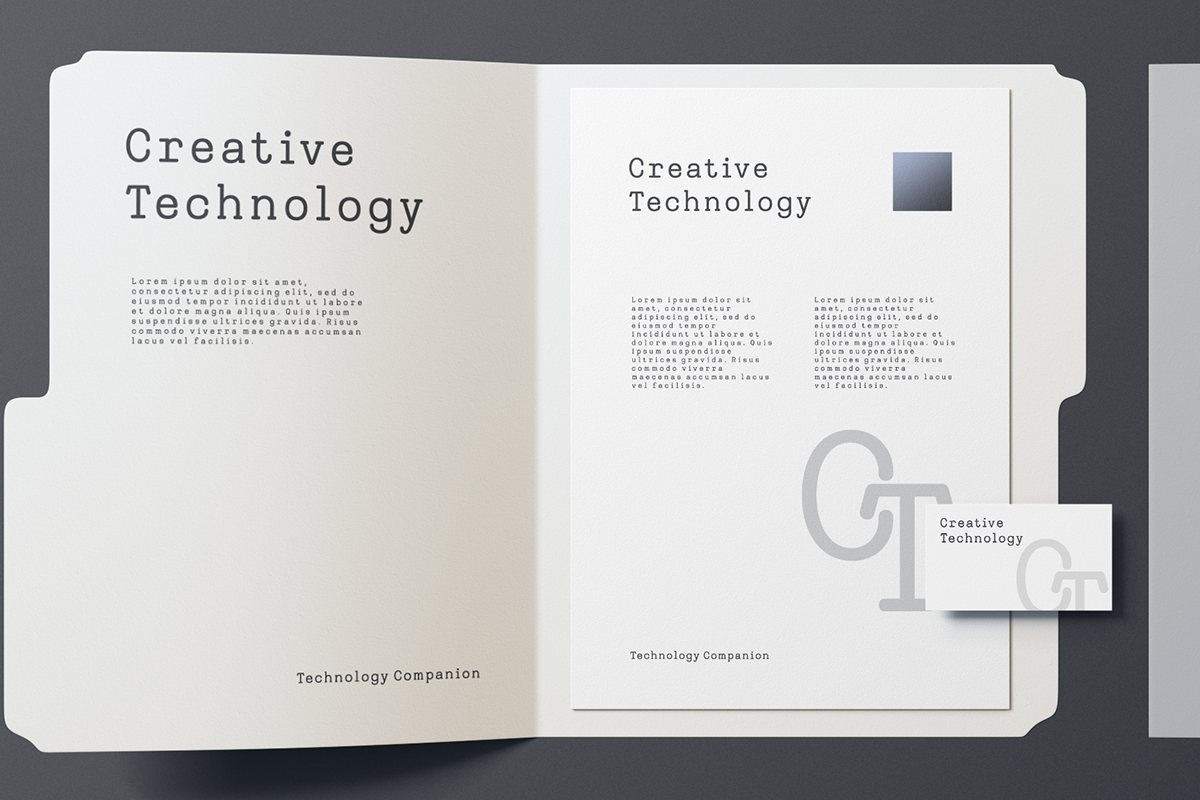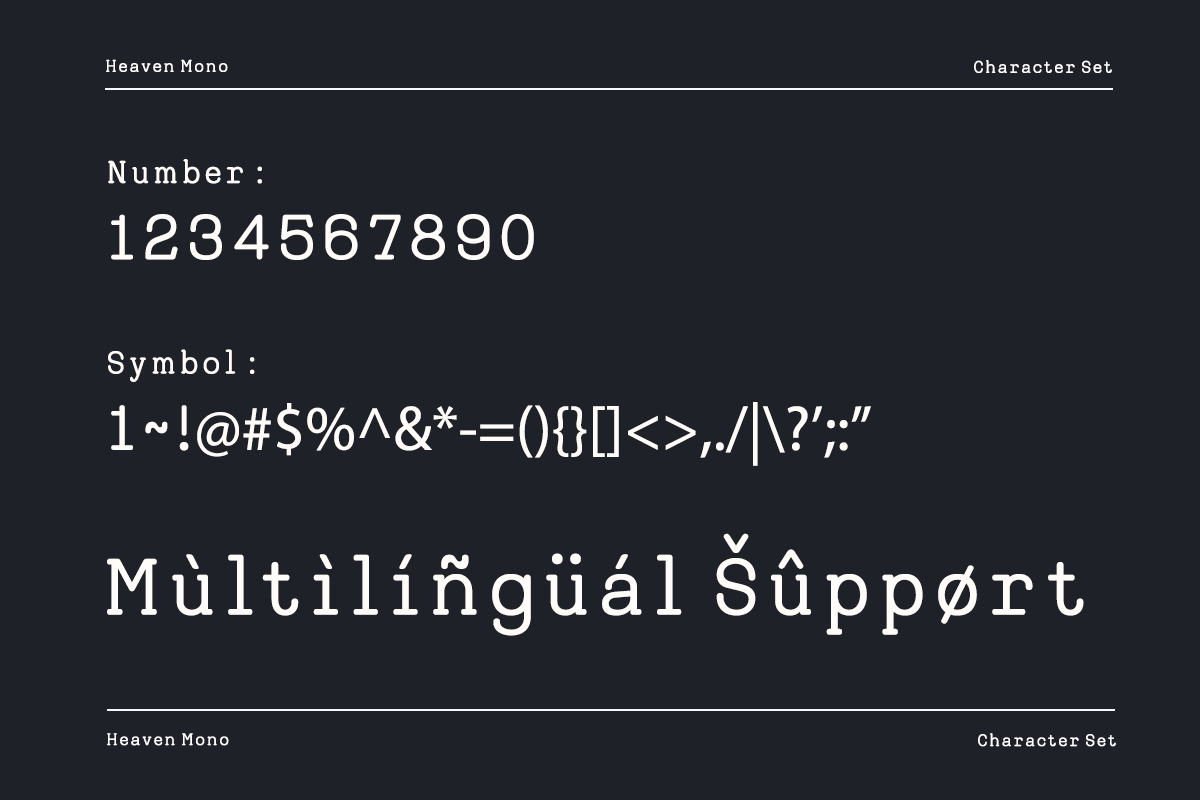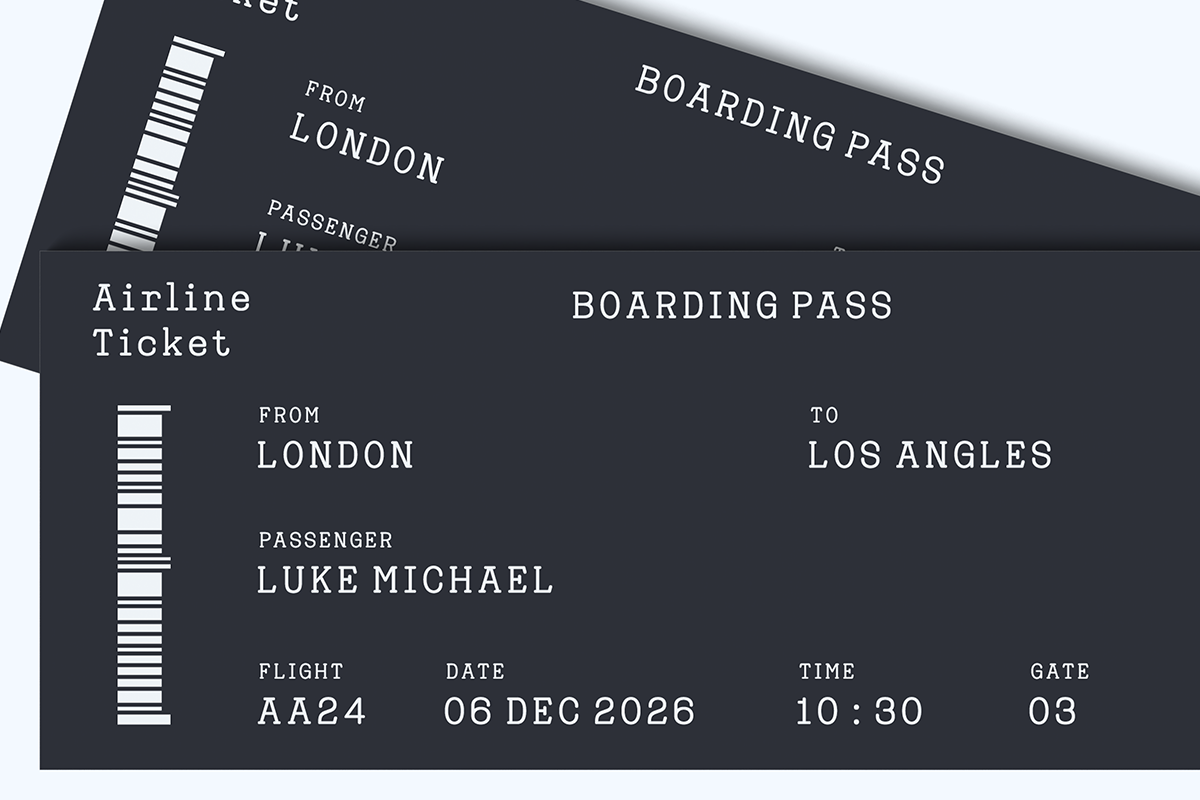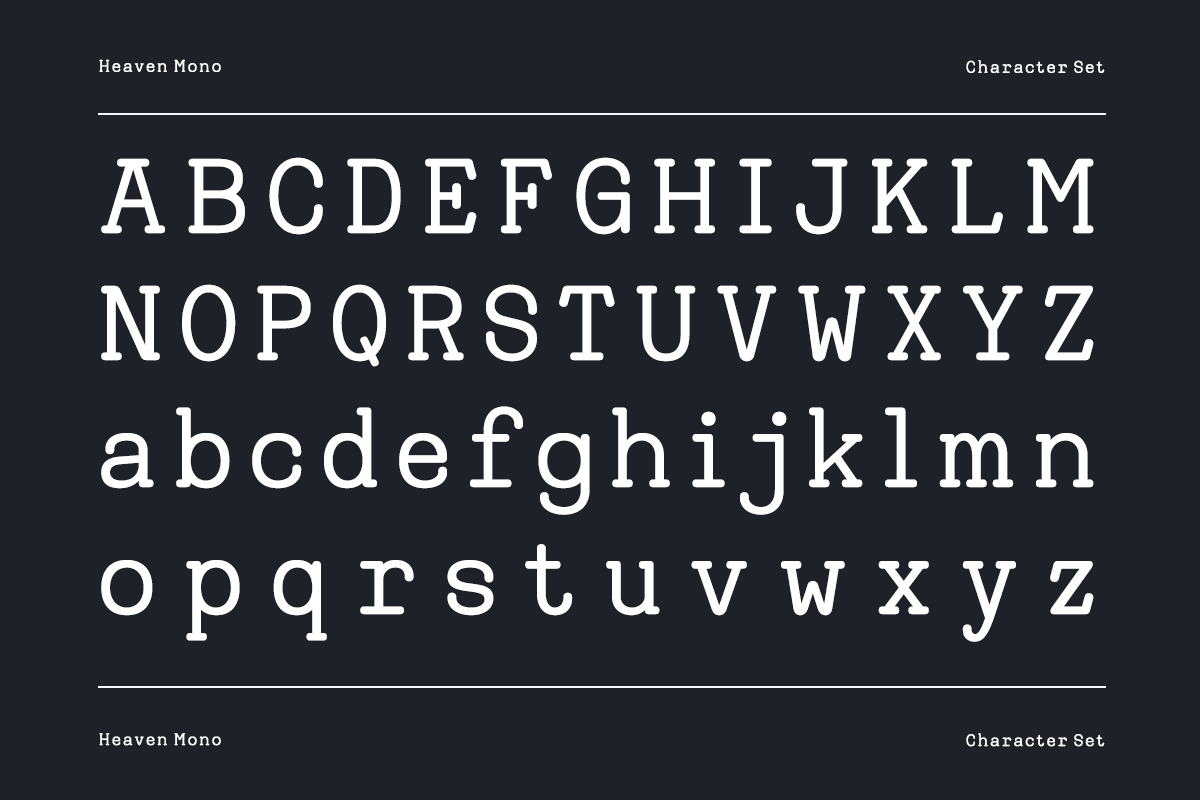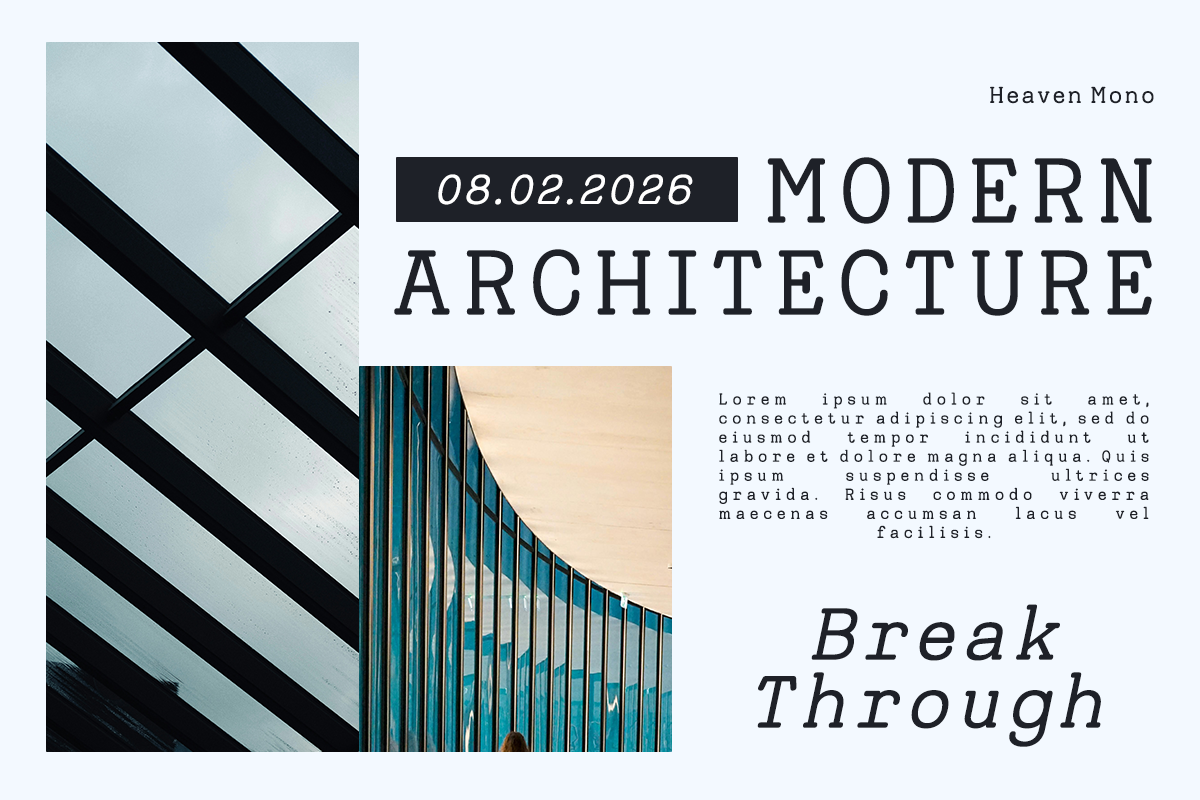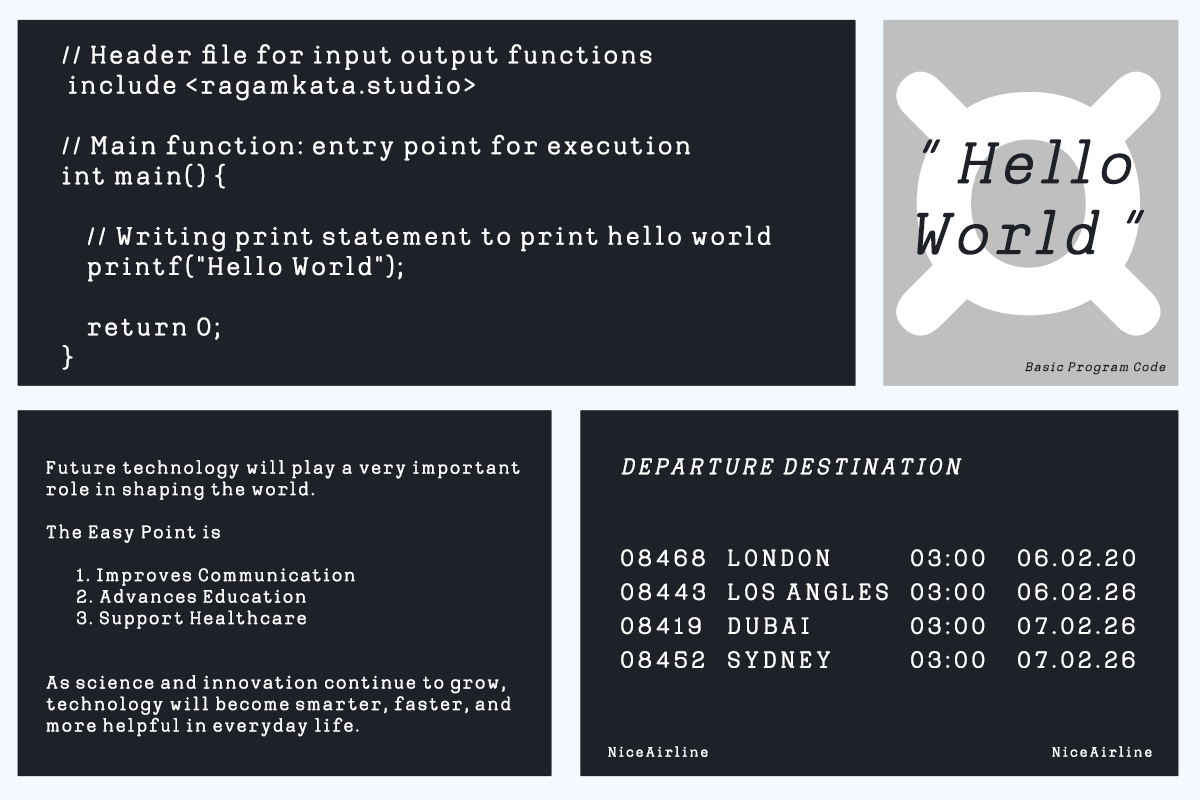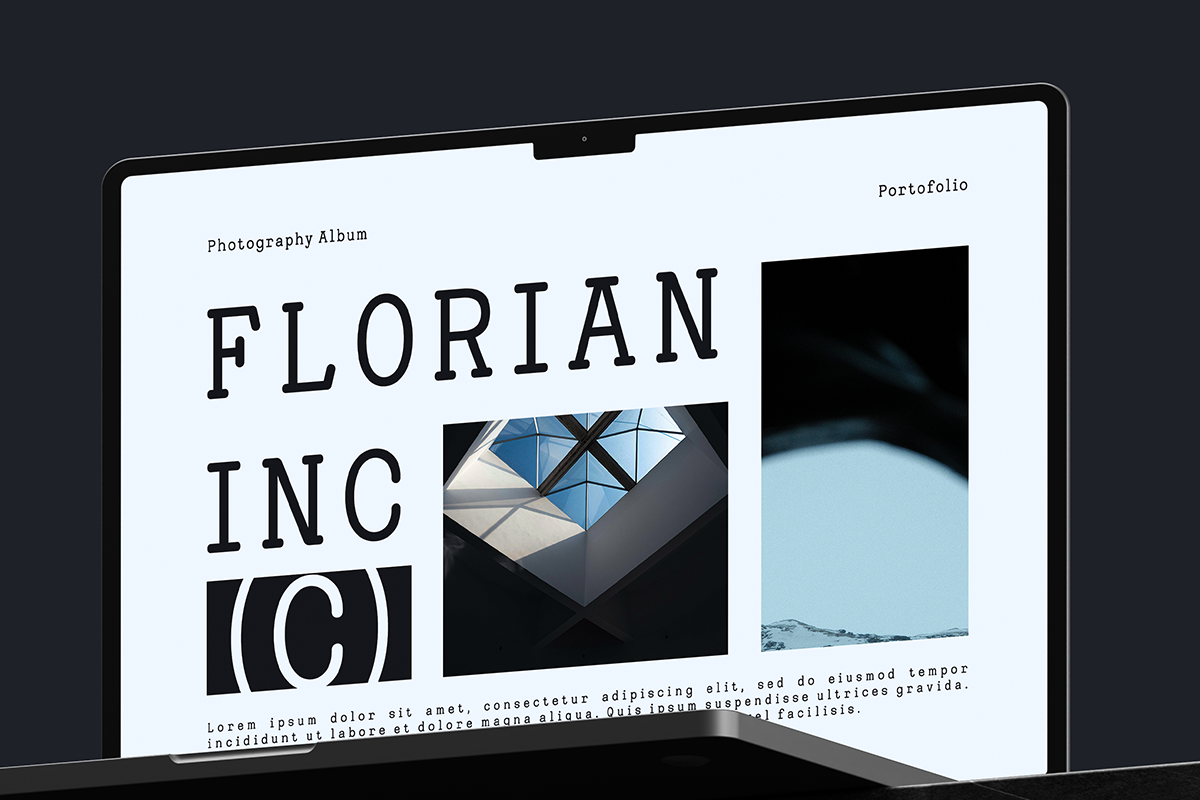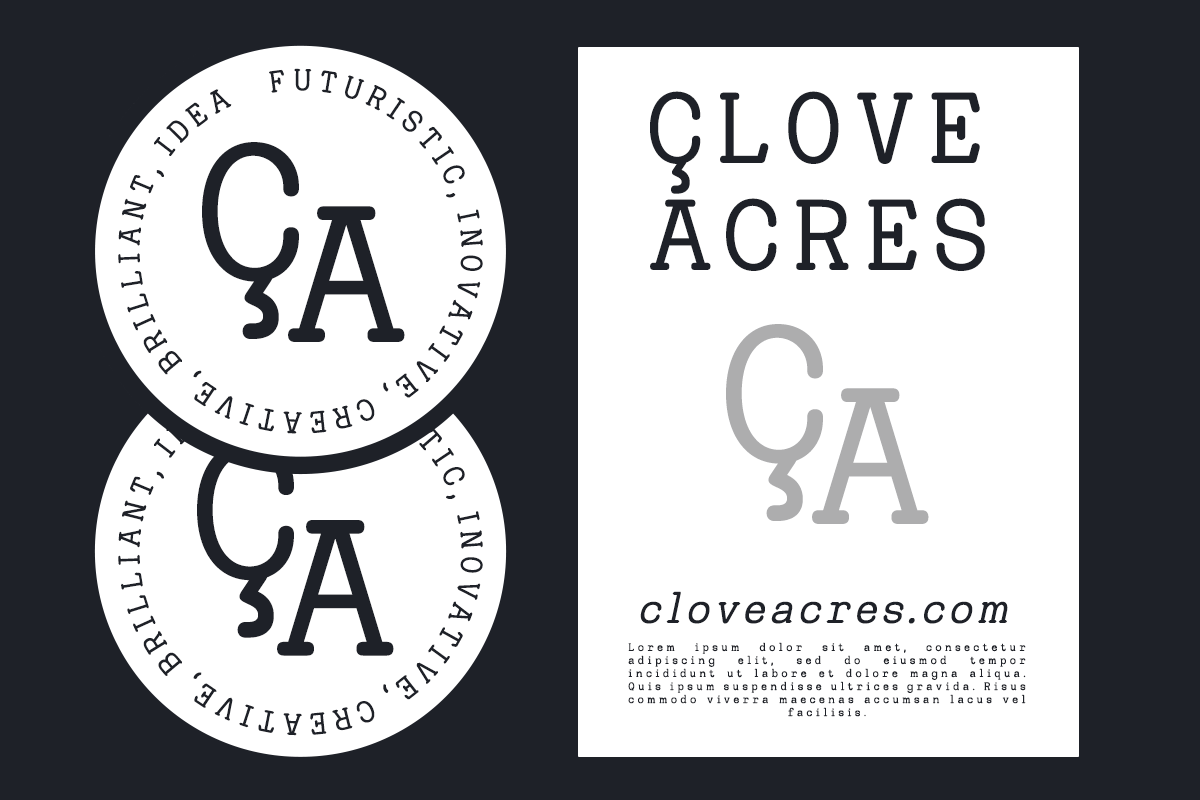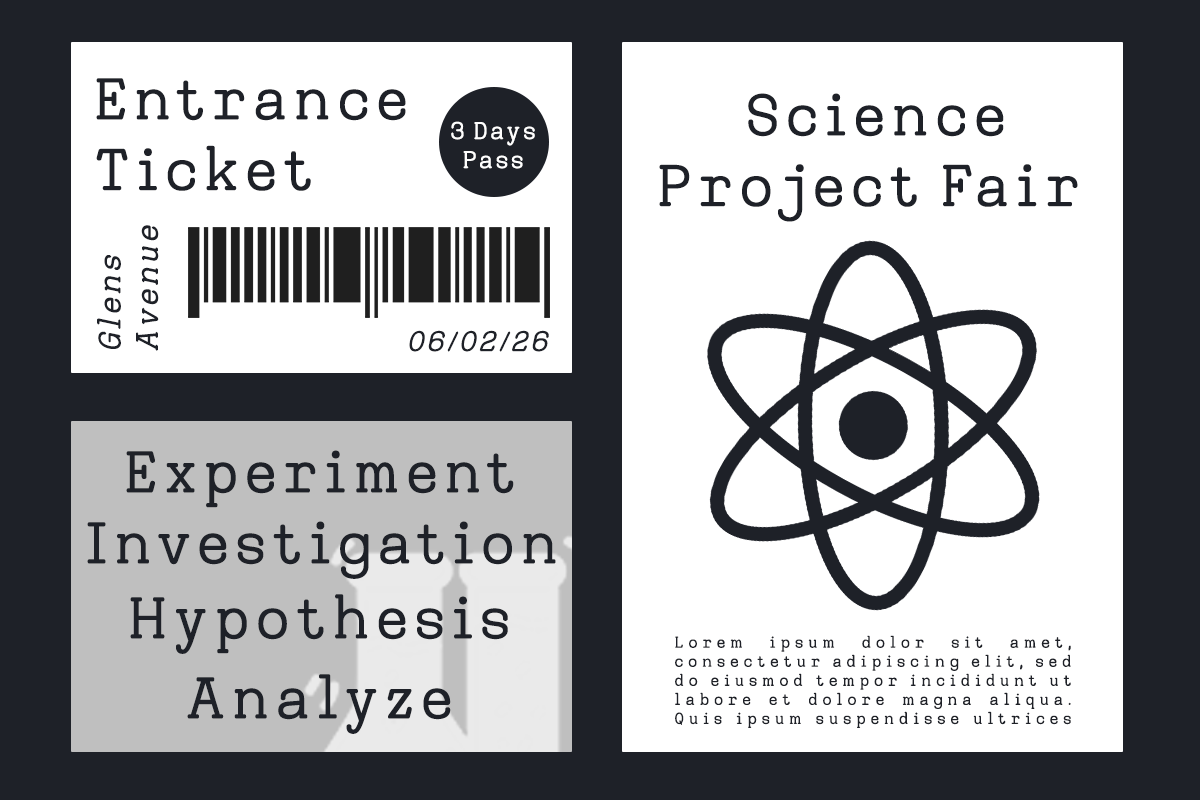
Heaven Mono – Monospace Serif
Heaven Mono is a modern monospace serif typeface that blends technical precision with refined elegance. Designed with balanced proportions, sharp details, and subtle serif accents, this typeface delivers a distinctive rhythm that feels both contemporary and timeless. Its structured letterforms create strong visual consistency, while its elegant touch adds character and personality to every composition.
Built for designers, developers, creative studios, and digital creators, Heaven Mono offers a versatile typographic solution for modern design needs. Perfect for coding interfaces, UI/UX design, branding systems, editorial layouts, posters, packaging, and experimental visuals, this font adapts seamlessly across digital and print applications, delivering clarity, structure, and strong aesthetic presence.
Whether used for tech branding, software interfaces, futuristic layouts, minimalist posters, editorial projects, or modern identity systems, Heaven Mono helps elevate visual communication with its clean, confident, and contemporary style. Designed for projects that demand precision and personality, this typeface brings harmony between logic and creativity.